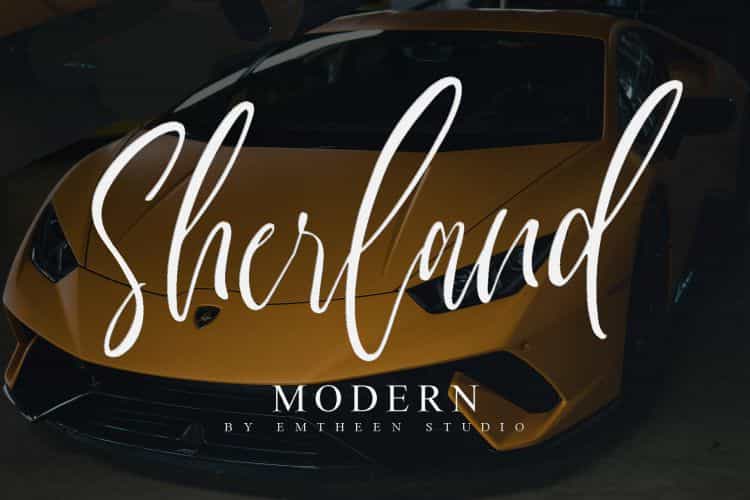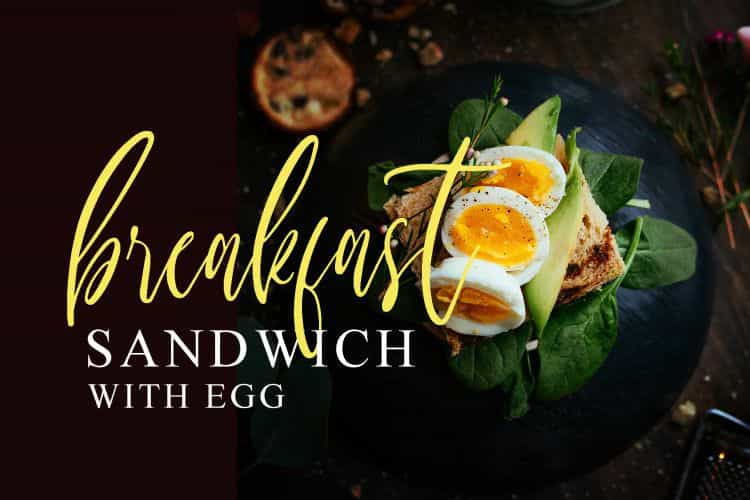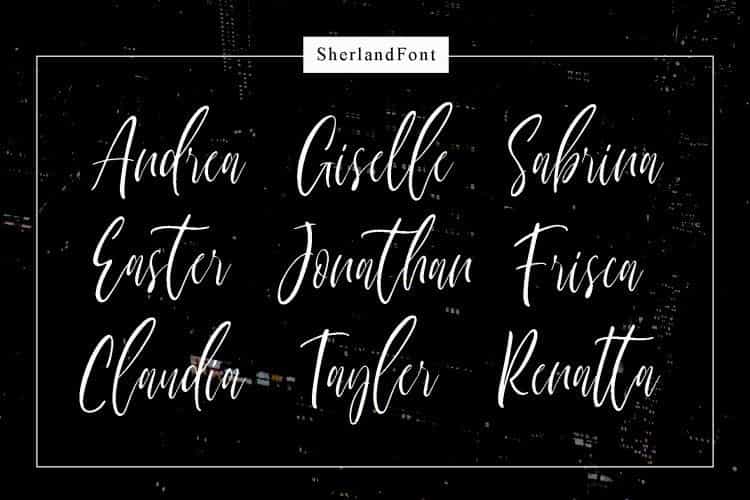
Discover Sherland Script Font, part of the Commercial Calligraphy collection—a versatile and unique font perfect for adding a personal touch to your projects. Download it for free and enjoy crafting designs with style, from invitations to social media posts. This font is available exclusively for personal use, giving you the freedom to create without limits. Unlock your creativity with Sherland Script Font today!
Introducing Sherland Font. This is a modern calligraphy font that will be a great addition to your design projects. It is ideal for logo design, wedding invitations and cards, and many other related services. That is why if you want your text to be unique you should use this font. It is was designed by Emtheen Std. . It is a script type font which has a thin and tall font script in each letter that makes this font stylish and contemporary.